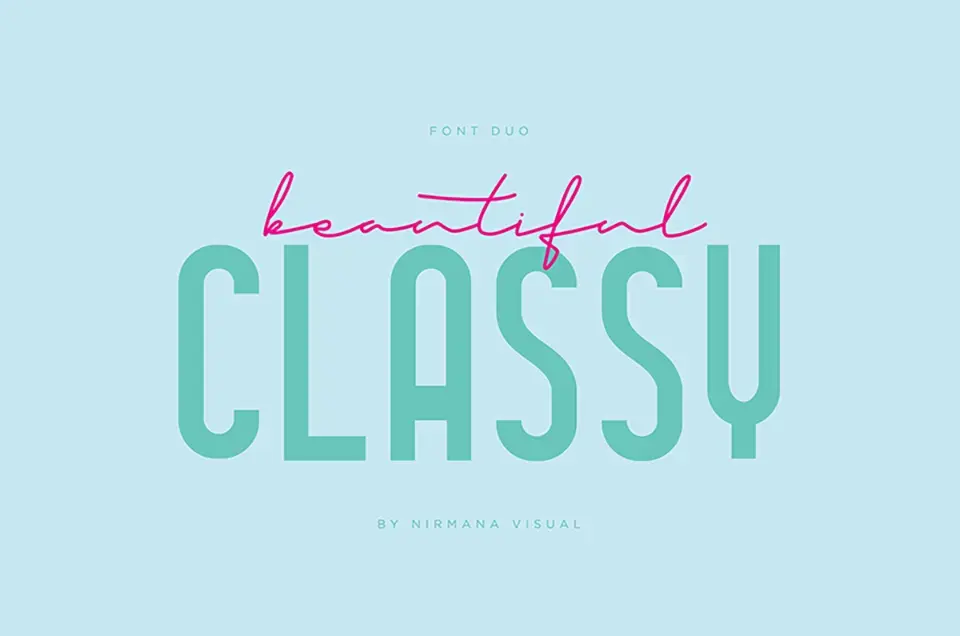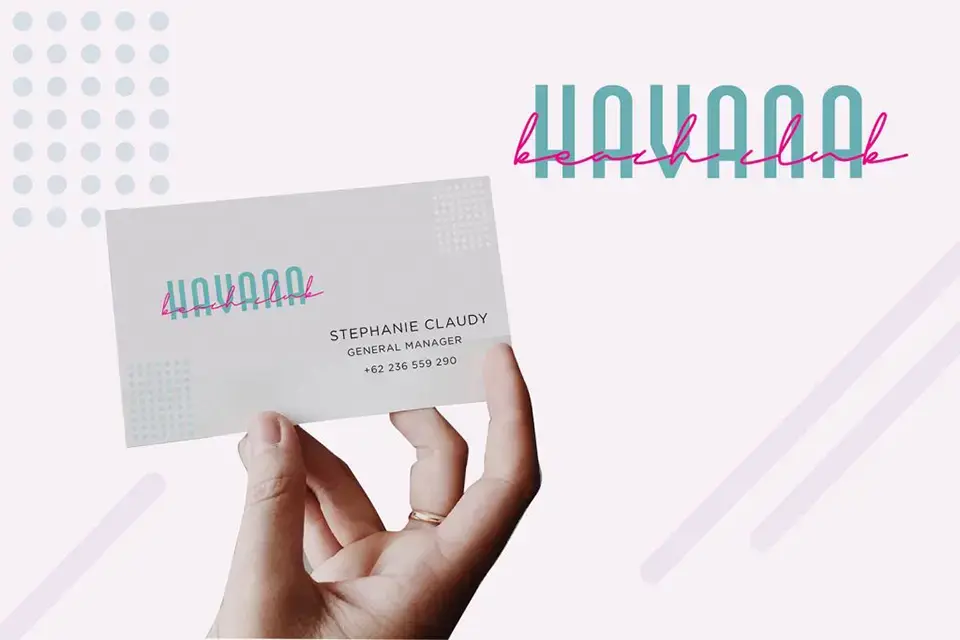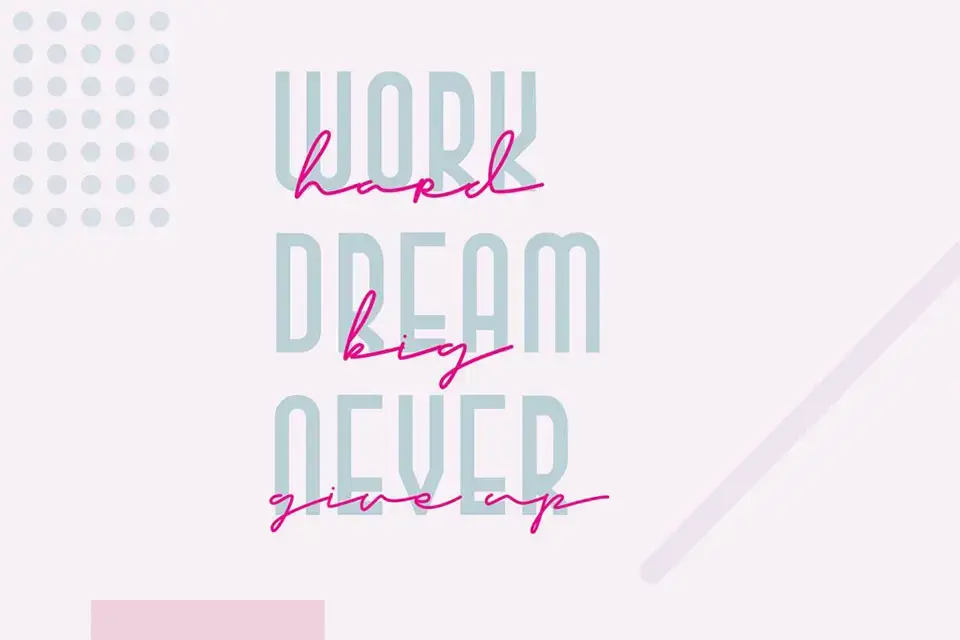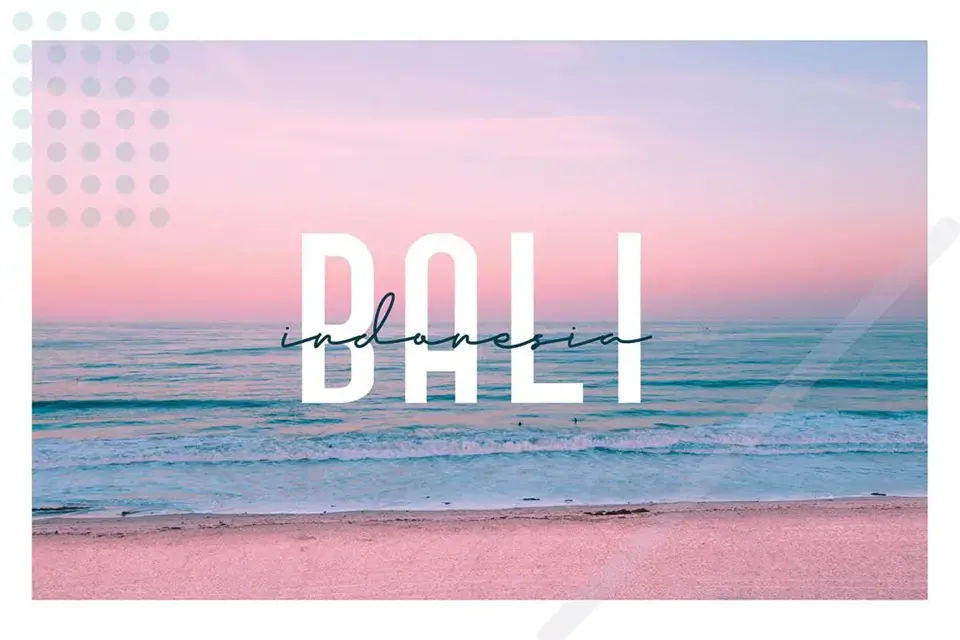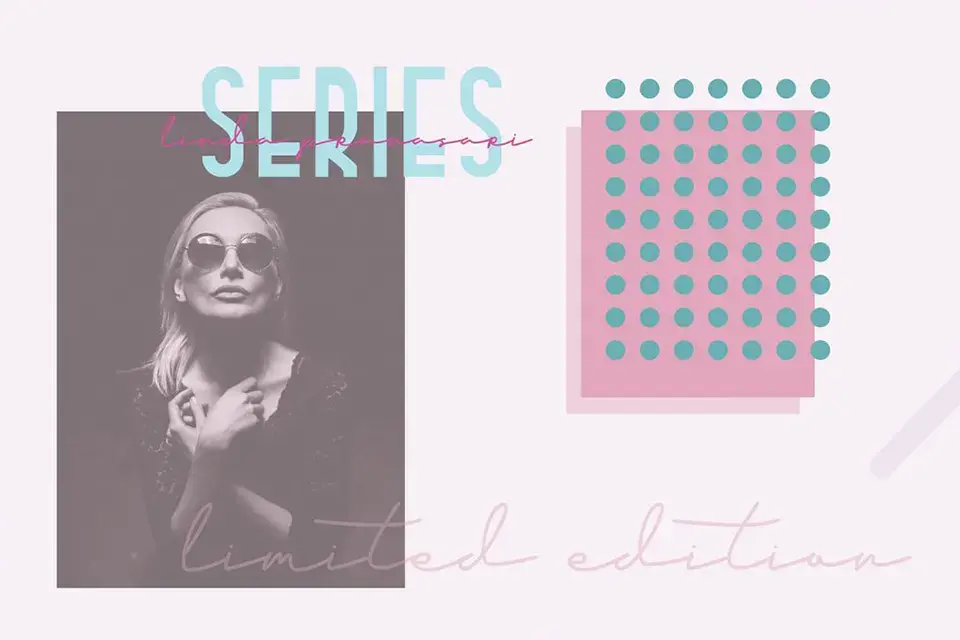
Classy Beautiful Font
Classy Beautiful is a refined script typeface featuring delicate, flowing letterforms with luxurious curves and graceful strokes. The font exudes elegance and sophistication, making it ideal for high-end branding, fashion magazines, wedding invitations, editorial design, and luxury packaging projects. With its polished aesthetic and versatile script style, Classy Beautiful works exceptionally well for headings, logos, decorative titles, and upscale visual communications. The font’s distinctive character makes it suitable for fashion-forward designs, cosmetic branding, and sophisticated greeting cards.